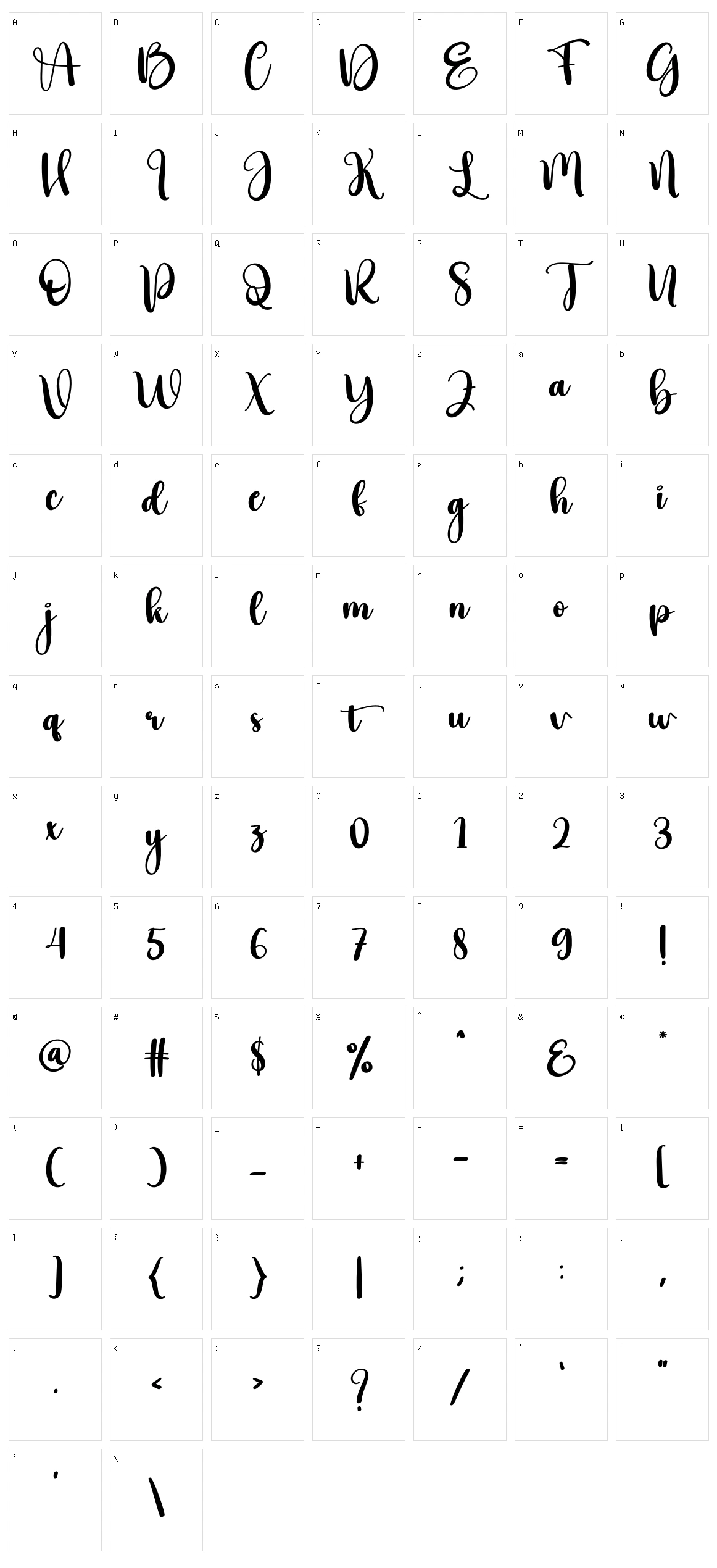
The free font Runday is carefully designed by Scratchones, showcasing a thoughtful balance of creativity and usability and falls under the Script font style. When you download the ZIP file, it contains only 82.92 KB of font files, making it lightweight and quick to download. Please review the license details below to understand permitted usage and distribution rights. If license information is not available, we recommend using this font for personal projects only or contacting the author directly for commercial usage permissions.